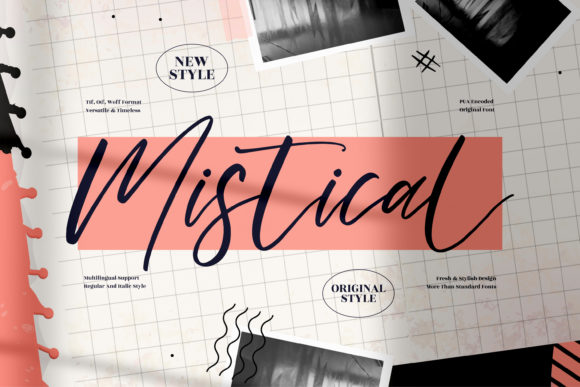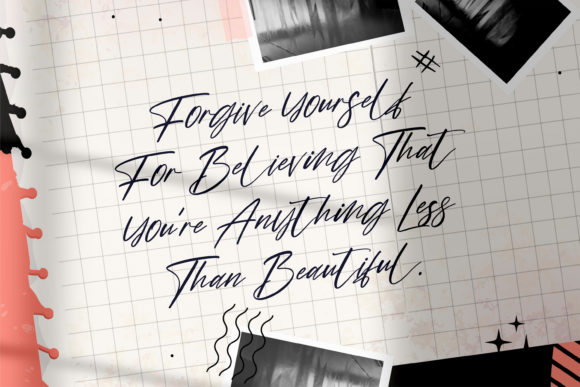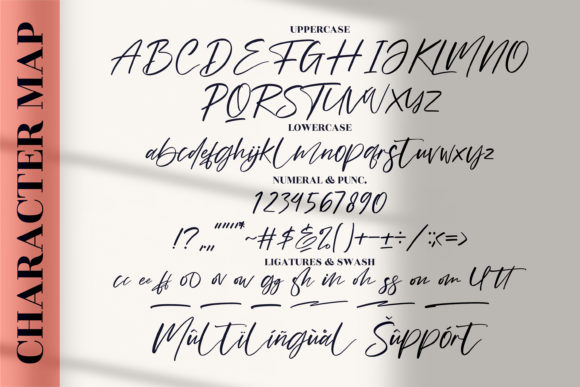
About Mistical Font
Mistical is a delicate and flowing script font. Fall for its ravishing style and use it to create gorgeous wedding invitations, beautiful stationary art, eye-catching social media posts, and much more!